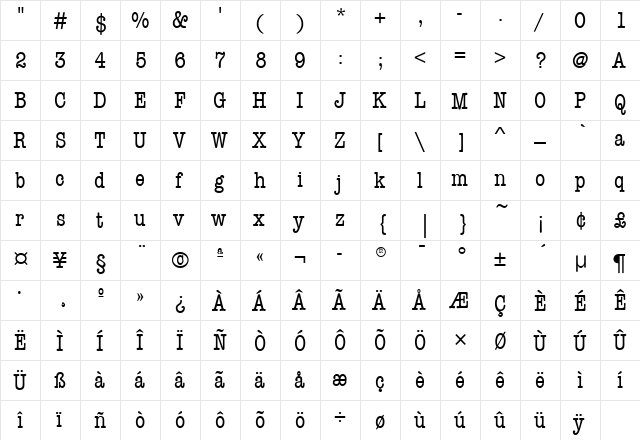
AmTypewriterCdMdITC Medium
Design Context for AmTypewriterCdMdITC Typeface
AmTypewriterCdMdITC brings the precise, column-aligned rhythm of monospaced typography to designs that value technical clarity and systematic order.
A natural fit for code editors, technical documentation, developer-focused branding, and terminal-inspired UI.
Pro Tip: Pair AmTypewriterCdMdITC with a proportional sans for UI contexts where code-style labels and regular body copy need to coexist.